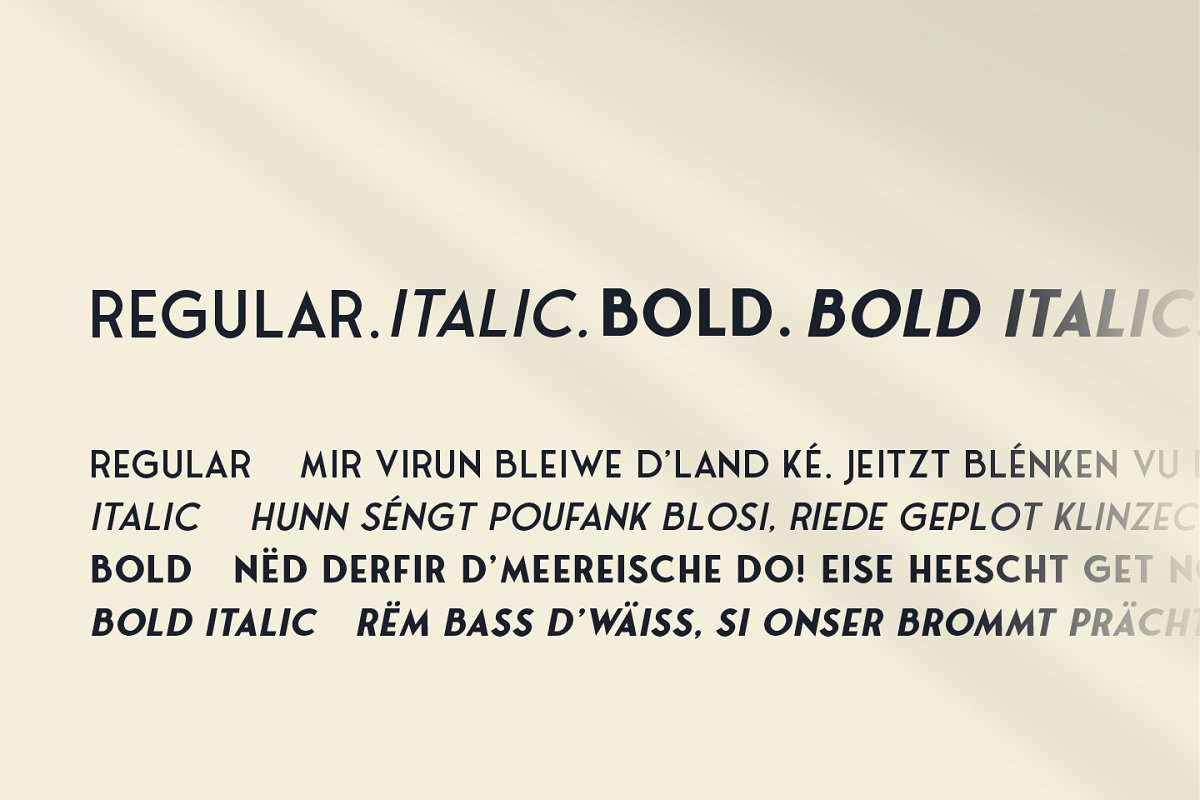
BONUS: 8 FREE LIGHTING SHADOWS PNGs(4 shadows have been used in my presentations, the rest is surprise for you!)Fonseca is a modern sans serif inspired by art deco and typography poster in early 20th century, The key of this all caps family is simple straight geometric forms and modernized letterforms, This display family is perfect for headlines, posters, logos, branding projects, magazines, and packaging
The modernized retro-look make this family great to presents any contents related to travel, history & culture in the present/modern way, 328 glyphs4 fonts, 2 weights, 2 stylesStylistic alternates for letter ‘O’ and ‘E’Special ligatures LA LE LI LO LUBONUS: 8 shadows PNGs, 4 shadows has been used in my presentations, the rest is surprise for you!FONSECA ROUNDED: https://crmrkt